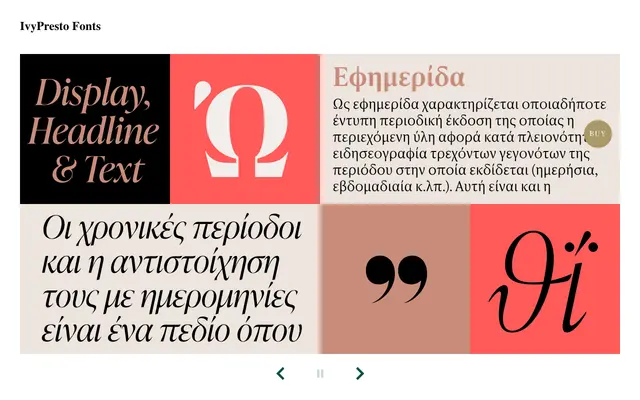
IvyPresto
A Garalde serif drawn from Hendrik van den Keere's work, offered across three optical sizes covering display through to continuous text.
Based on the historical work of Hendrik van den Keere, IvyPresto combines a large x-height, sharp serifs and high contrast with narrow proportions suited to both display and text settings. The family spans 30 styles across Display, Headline and Text optical sizes, each available in five weights with matching italics. Cyrillic and Greek were added in May 2021 following consultation with Maria Doreuli, Krista Radoeva and Irene Vlachou.
IvyPresto is explicitly described as an Old Style (Garalde) family based on the work of Hendrik van den Keere, characterised by high contrast, sharp serifs, large x-height and narrow proportions.